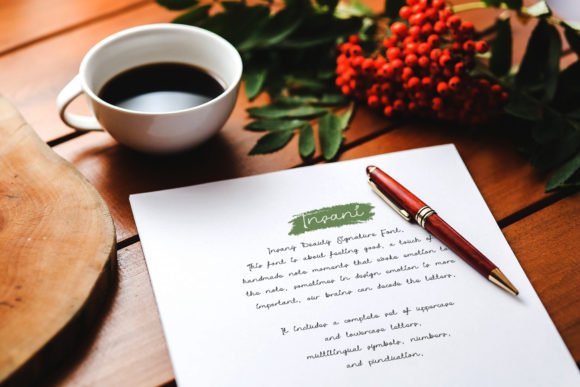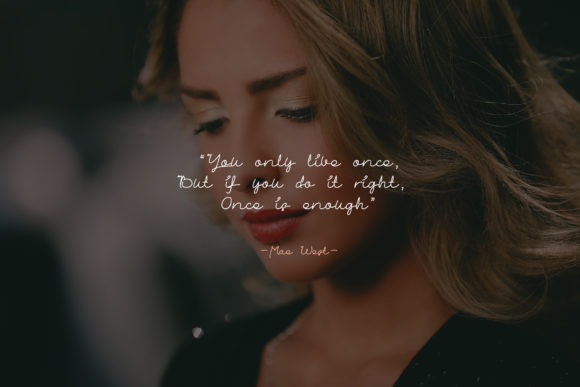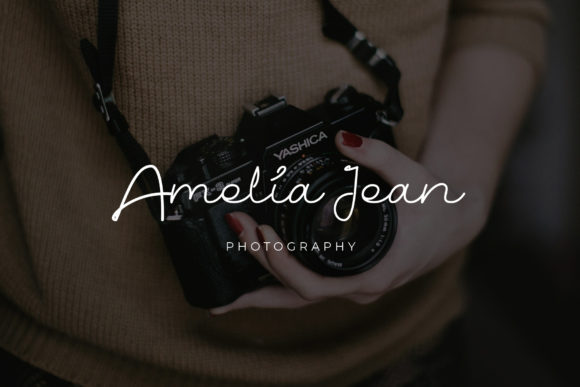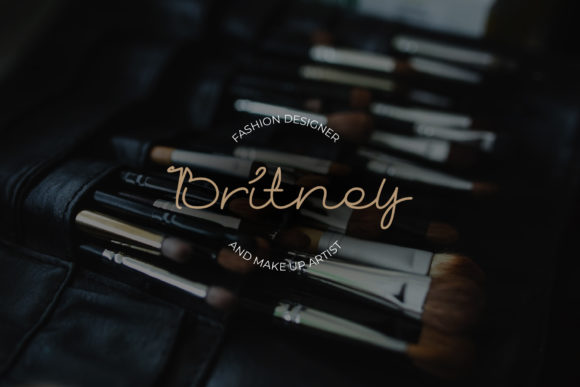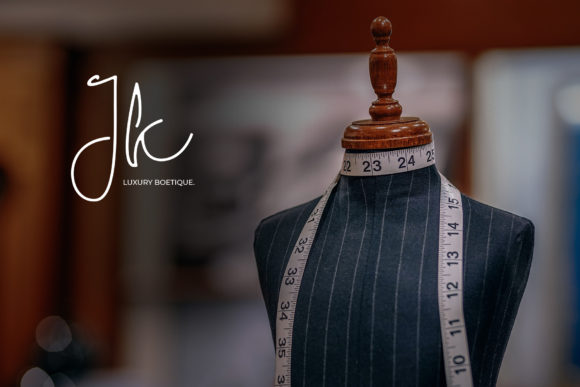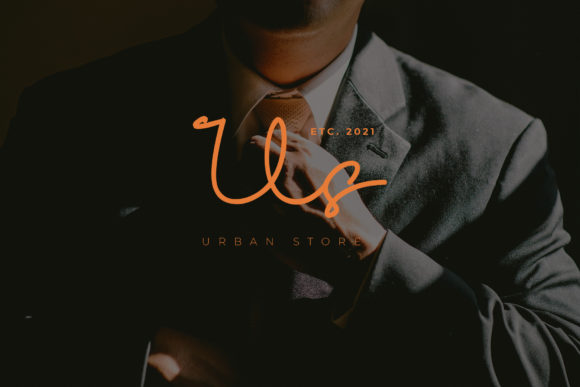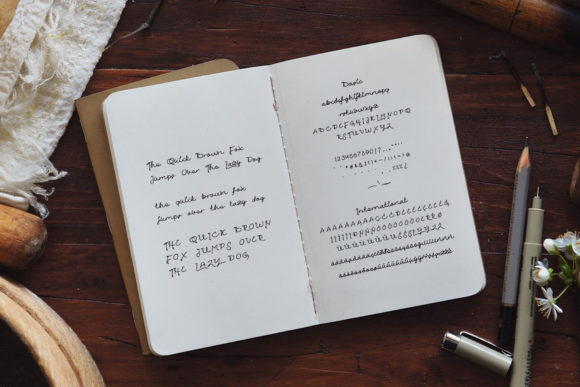
The Perfect Brushstroke: Unveiling Insani – Beauty Signature Font
Have you ever sat at your desk, pen in hand, and felt the rush of creativity as your ideas begin to flow onto the page? That’s the magic of typography. For designers, there’s nothing quite like the thrill of bringing a project to life with the perfect font. And, for those looking to add a touch of elegance and whimsy to their designs, Insani – Beauty Signature Font is the perfect companion.
This stunning handwritten font is designed to elevate any project, from logos and wedding invitations to headings and signage. With its beautiful, modern flair, Insani – Beauty Signature Font is a valuable addition to any designer’s toolkit, offering endless possibilities for creative expression. Whether you’re a seasoned pro or just starting out, this versatile font is sure to become a trusted favorite.
Key Features of Insani – Beauty Signature Font
- Font Family: Insani – Beauty Signature Font, a modern and elegant script font designed to add a touch of sophistication to any design.
- Unique Characteristics: The font features a unique blend of modern and vintage elements, with intricate flourishes and elegant letterforms that evoke a sense of luxury and refinement.
Insani – Beauty Signature Font Review
Overall, I’m quite impressed with the Insani – Beauty Signature Font. ✨ It’s a beautiful, elegant font that’s perfect for any beauty or fashion-related project. The font is highly customizable, and the OpenType features allow for some amazing effects. ✨
The font includes a wide range of characters, including Latin, Cyrillic, and Greek alphabets, making it a great option for international projects. The font also includes a variety of swashes, ligatures, and ornaments that can add a touch of sophistication to any design. ✨
Overall, I’d give the Insani – Beauty Signature Font a solid 4 out of 5 stars. It’s a stunning font that’s perfect for beauty and fashion projects, but it does have a few limitations that may hold it back from being a top-tier font. ✨
Insani – Beauty Signature Font is ideal for:
- Beauty and wellness branding
- Fashion and lifestyle designs
- High-end product packaging
For the most effective use of the font, pair it with clean lines, pastel colors, and elegant graphics.
What is the character set for Insani – Beauty Signature Font?
The Insani – Beauty Signature Font includes a comprehensive character set that supports multiple languages, including Latin, Cyrillic, and Greek. The font also includes a wide range of punctuation marks, symbols, and diacritical characters.